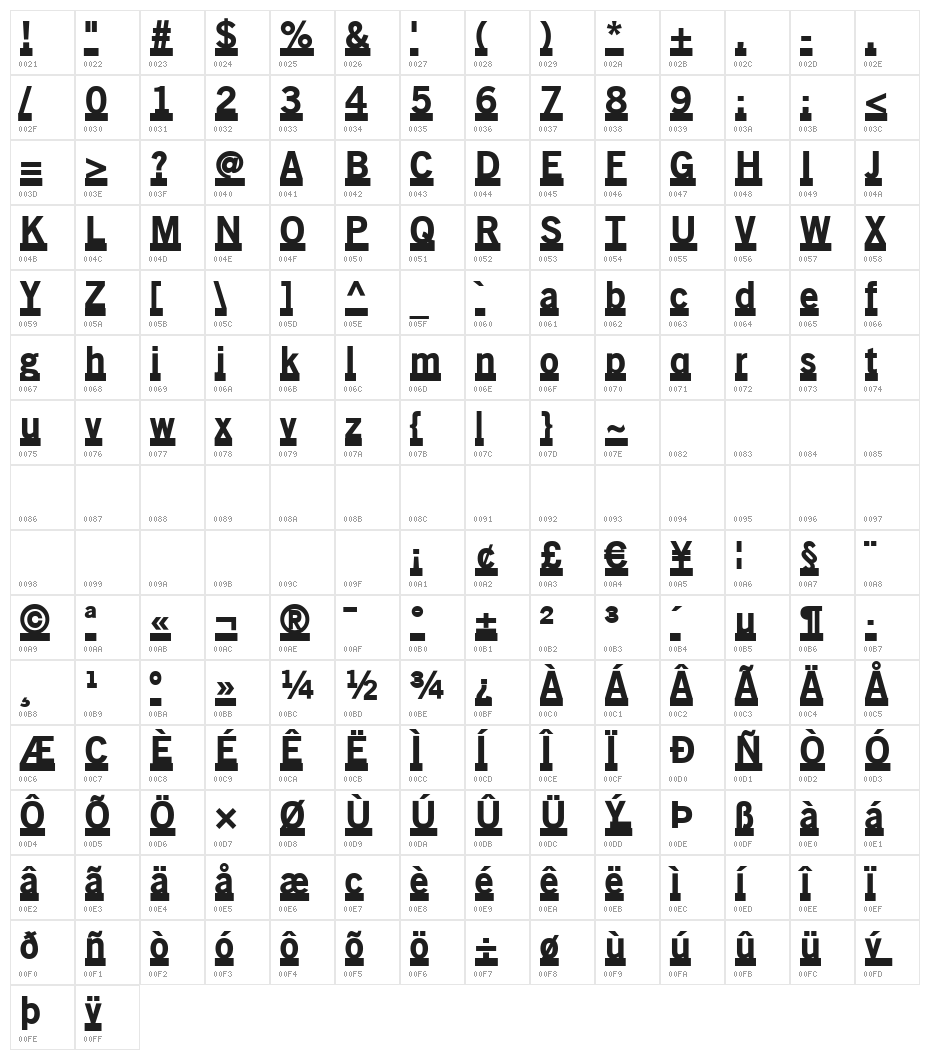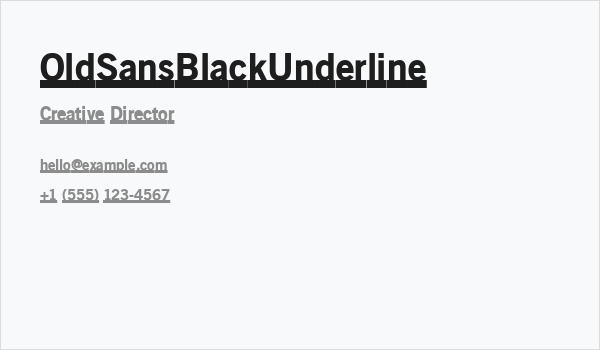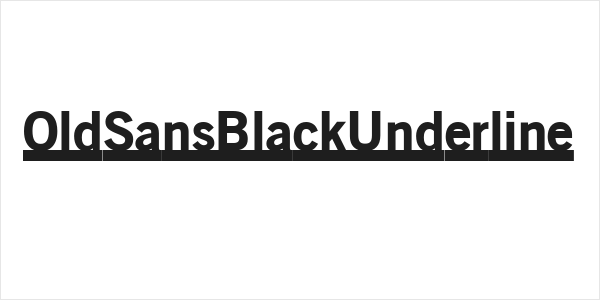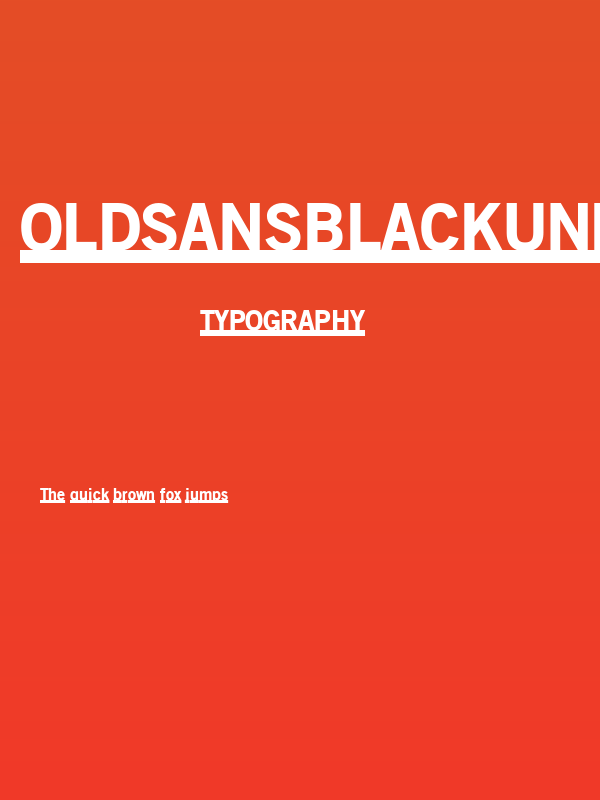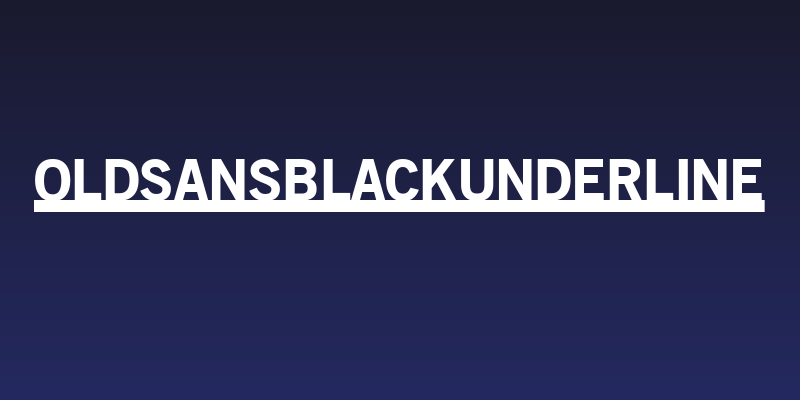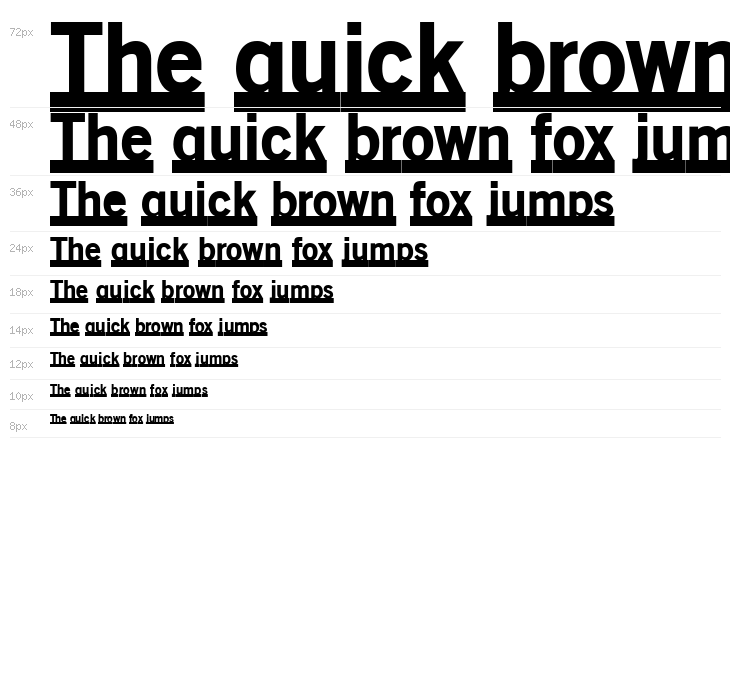
OldSansBlackUnderline Font
OldSansBlackUnderline Description
This font features a bold, sans-serif style with a strong, impactful presence. The characters are uniformly thick, providing a consistent and robust appearance. The uppercase and lowercase letters are well-proportioned, maintaining clarity and readability. The numbers and special characters are designed to match the boldness of the letters, ensuring a cohesive look across all text elements. The font's modern aesthetic is enhanced by its clean lines and lack of serifs, making it suitable for contemporary design projects. Its bold weight and strong visual impact make it ideal for headlines and attention-grabbing text.
| Proposed Projects | Ideal for headlines, posters, branding, and any design requiring a strong visual impact. |